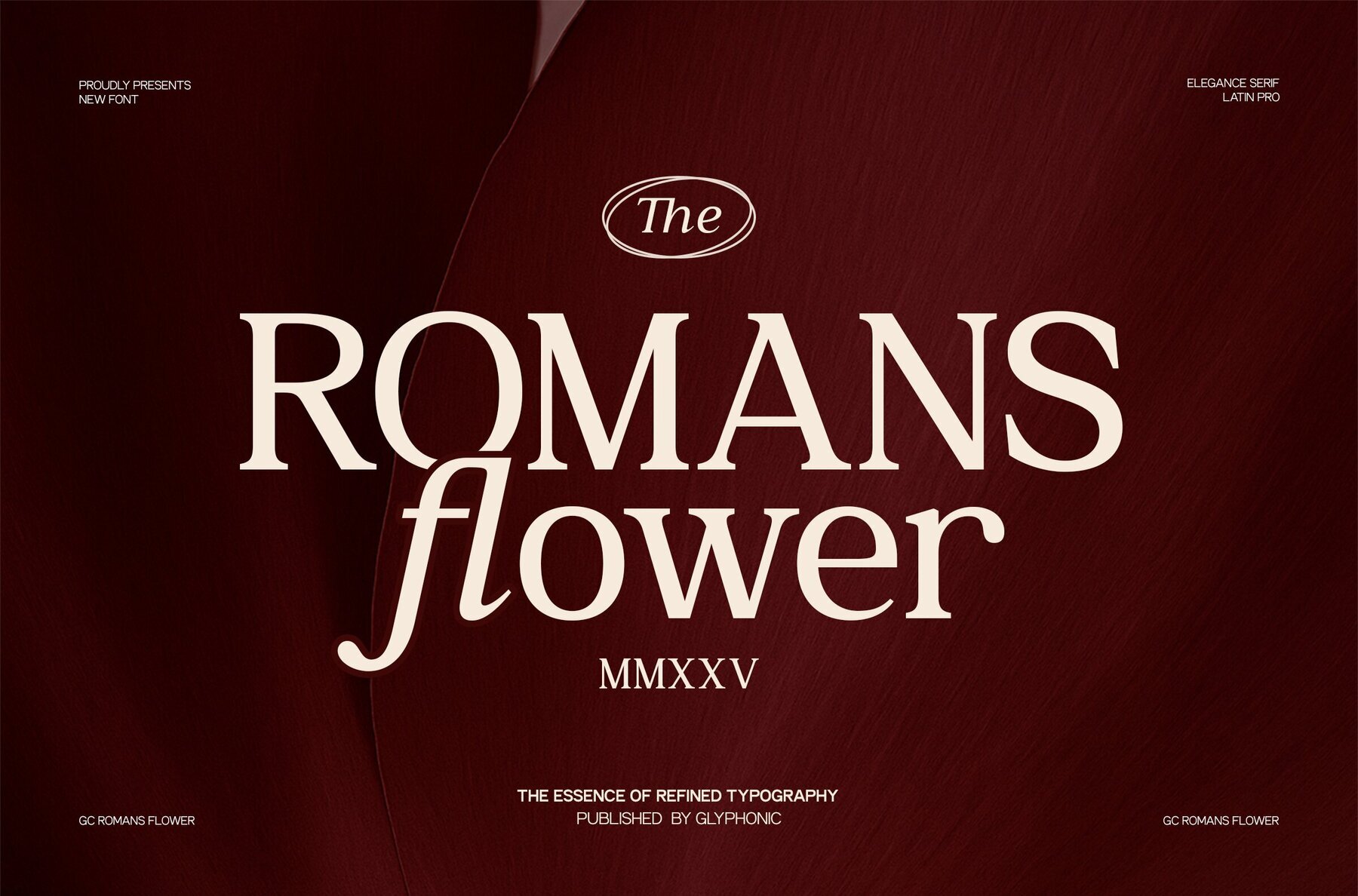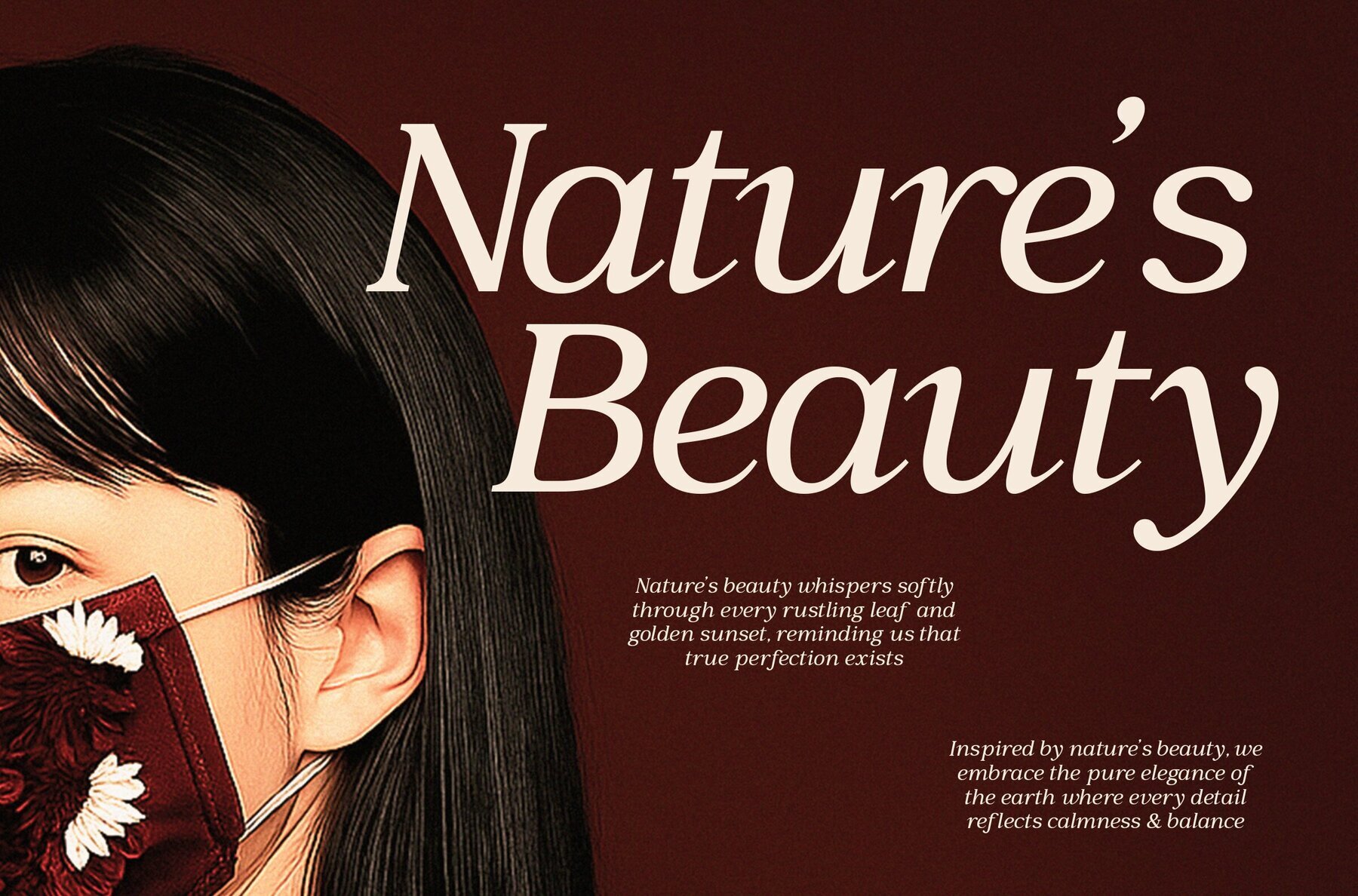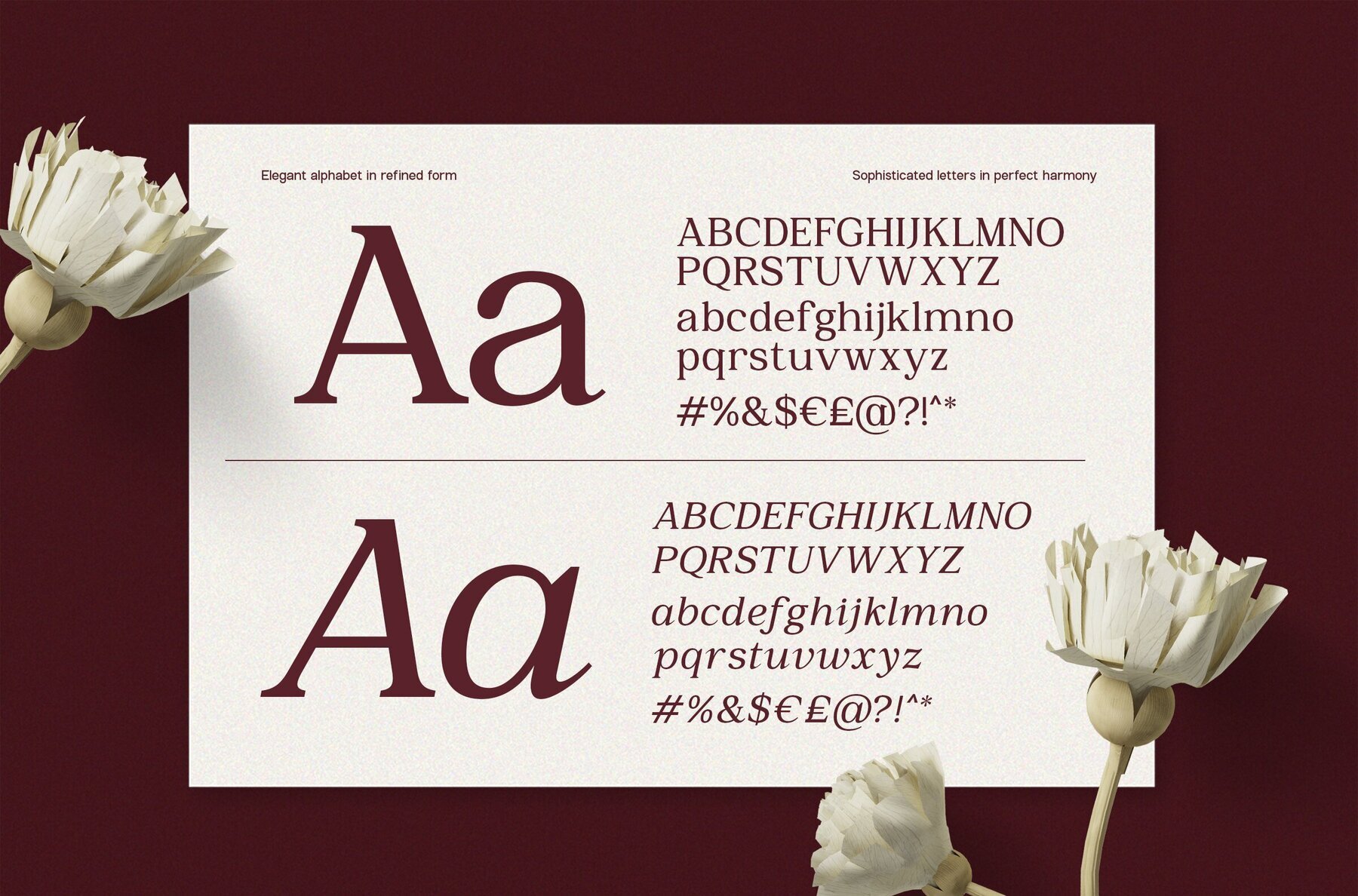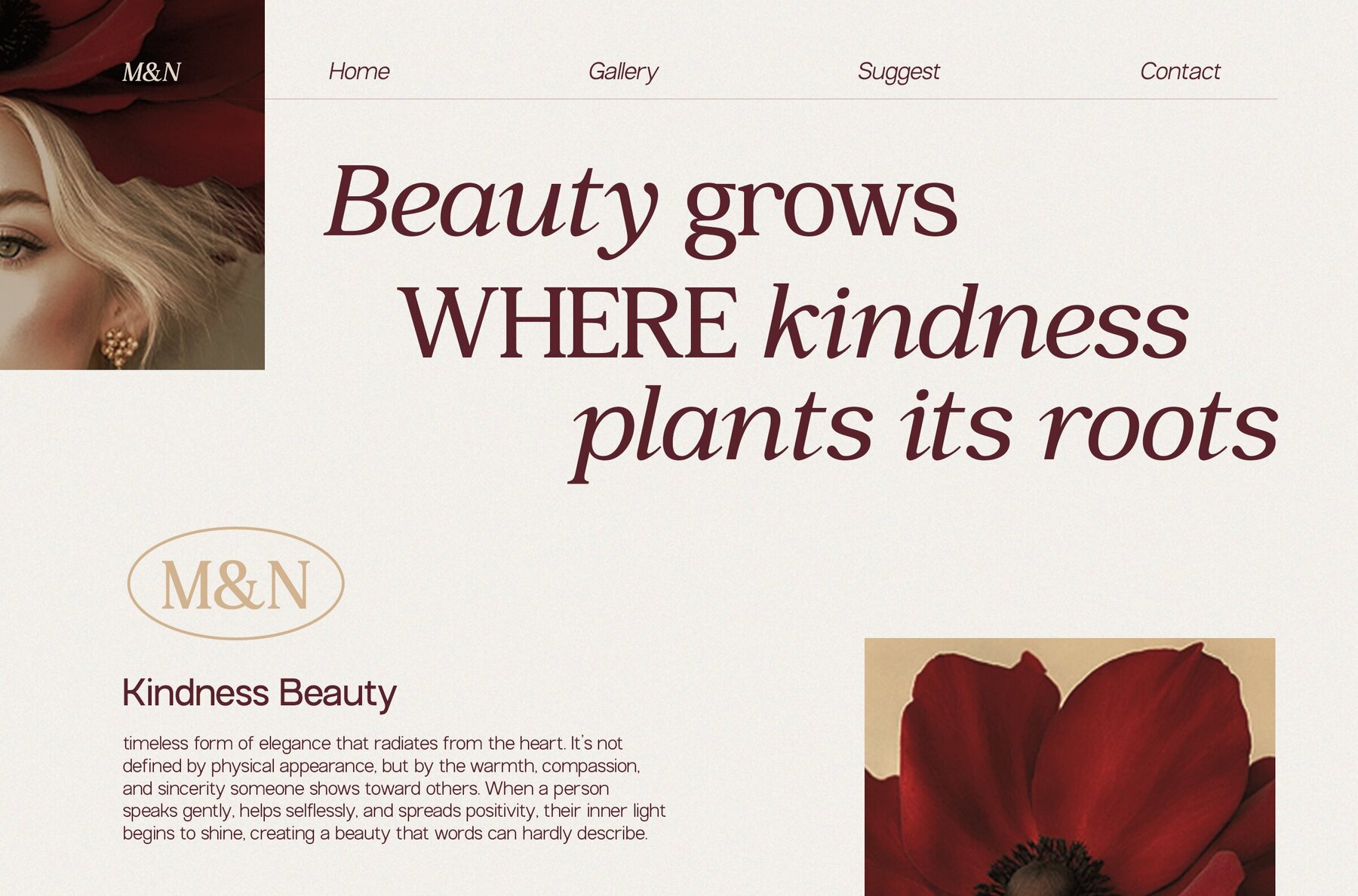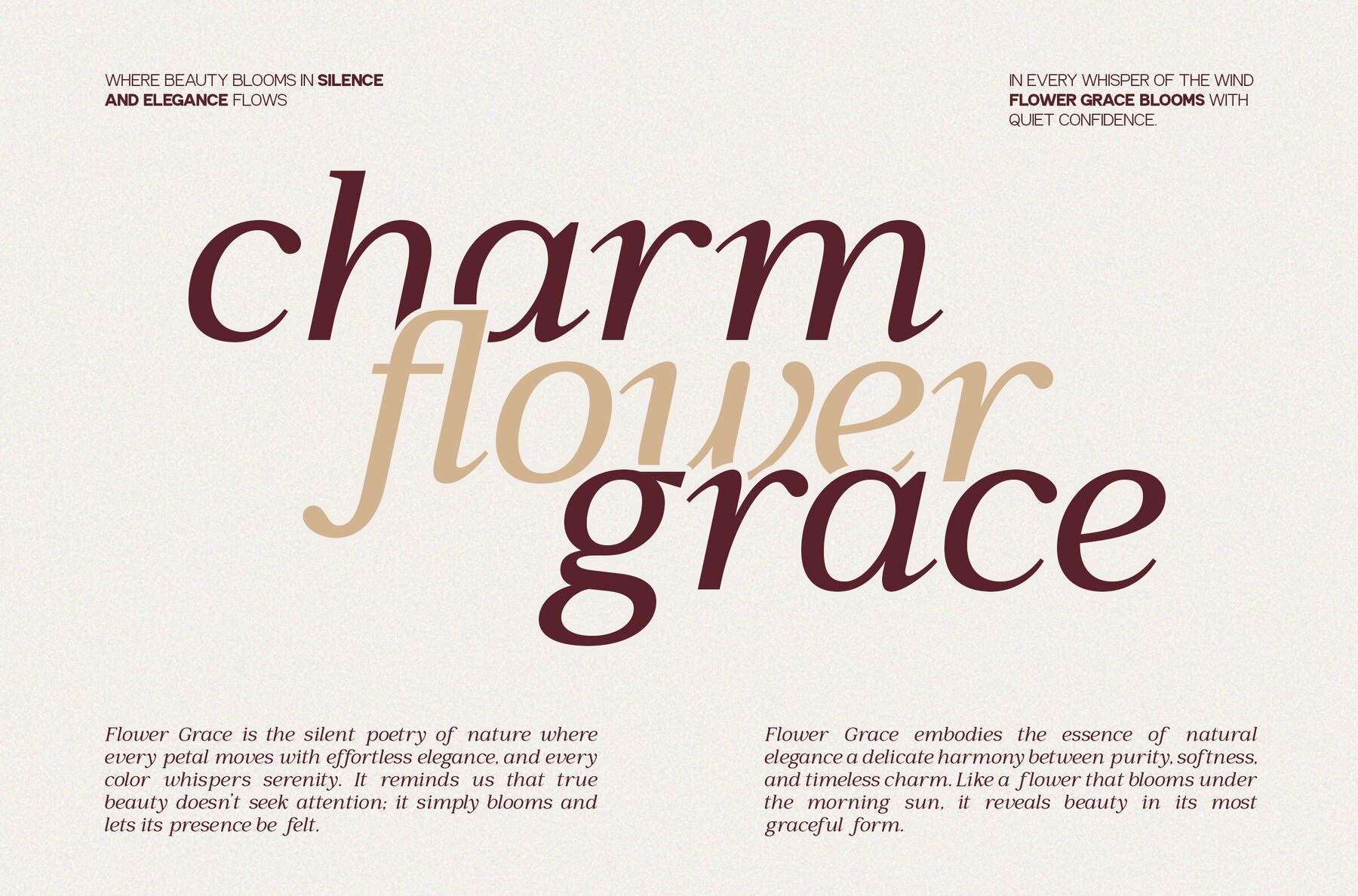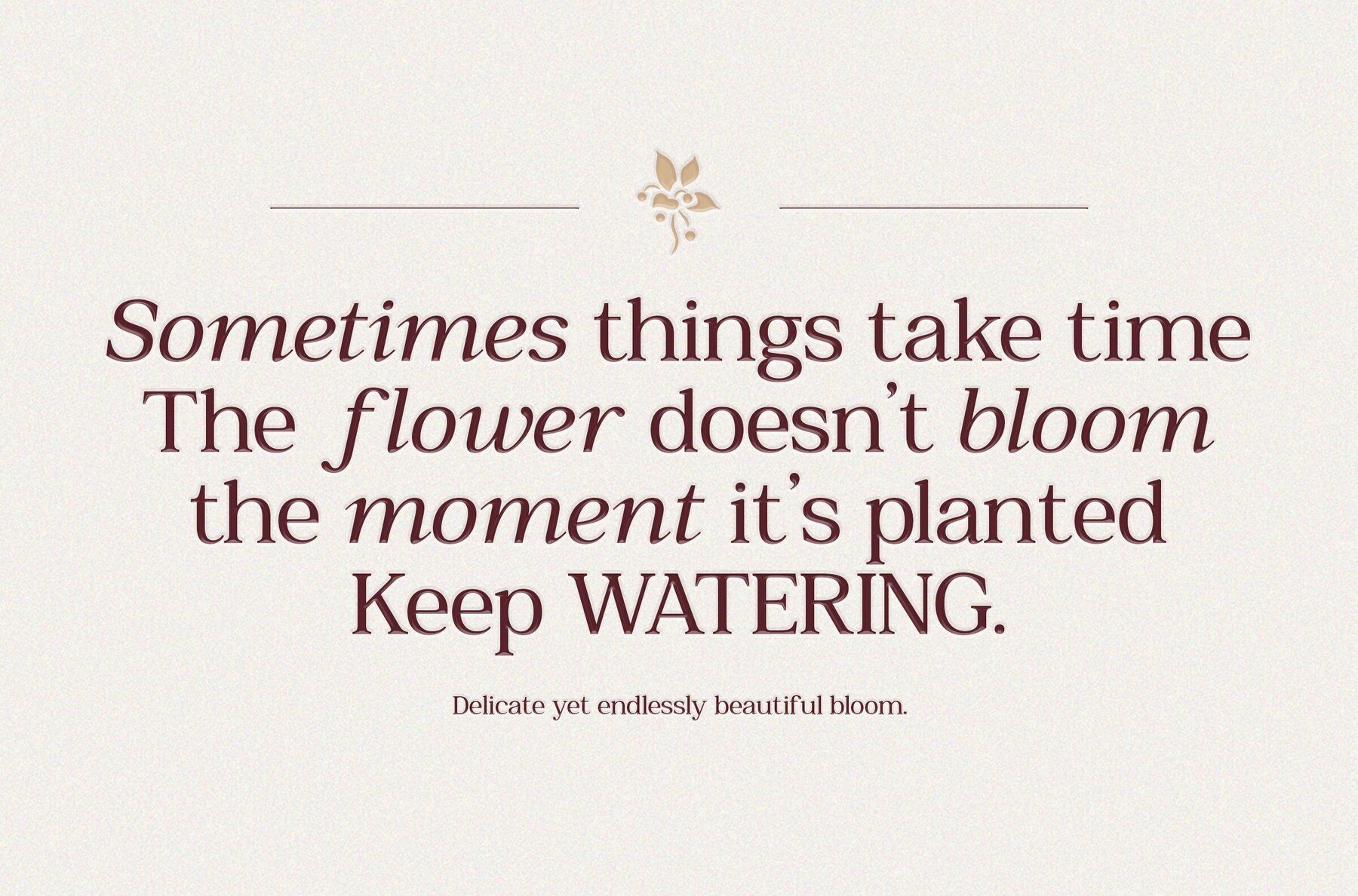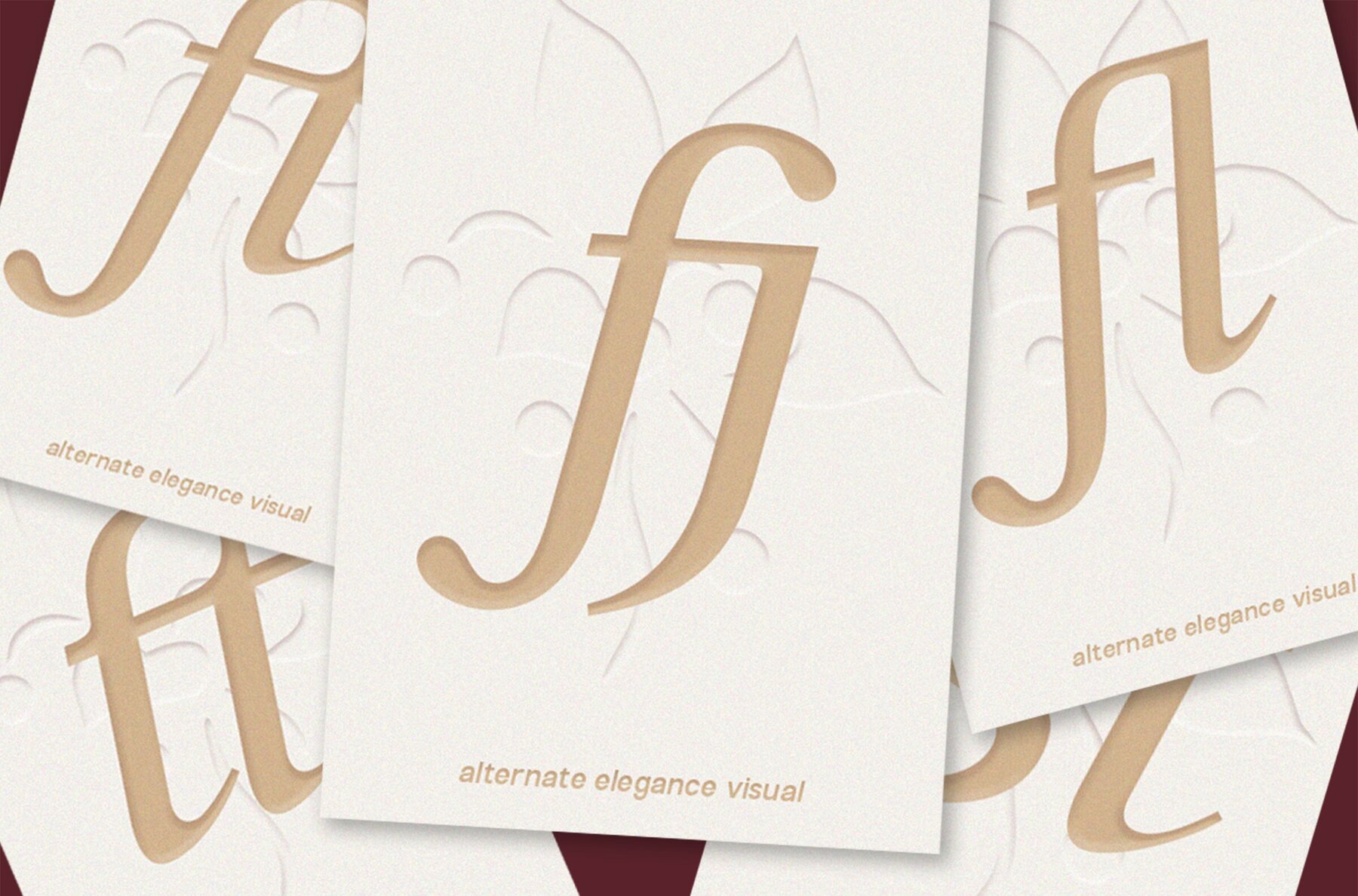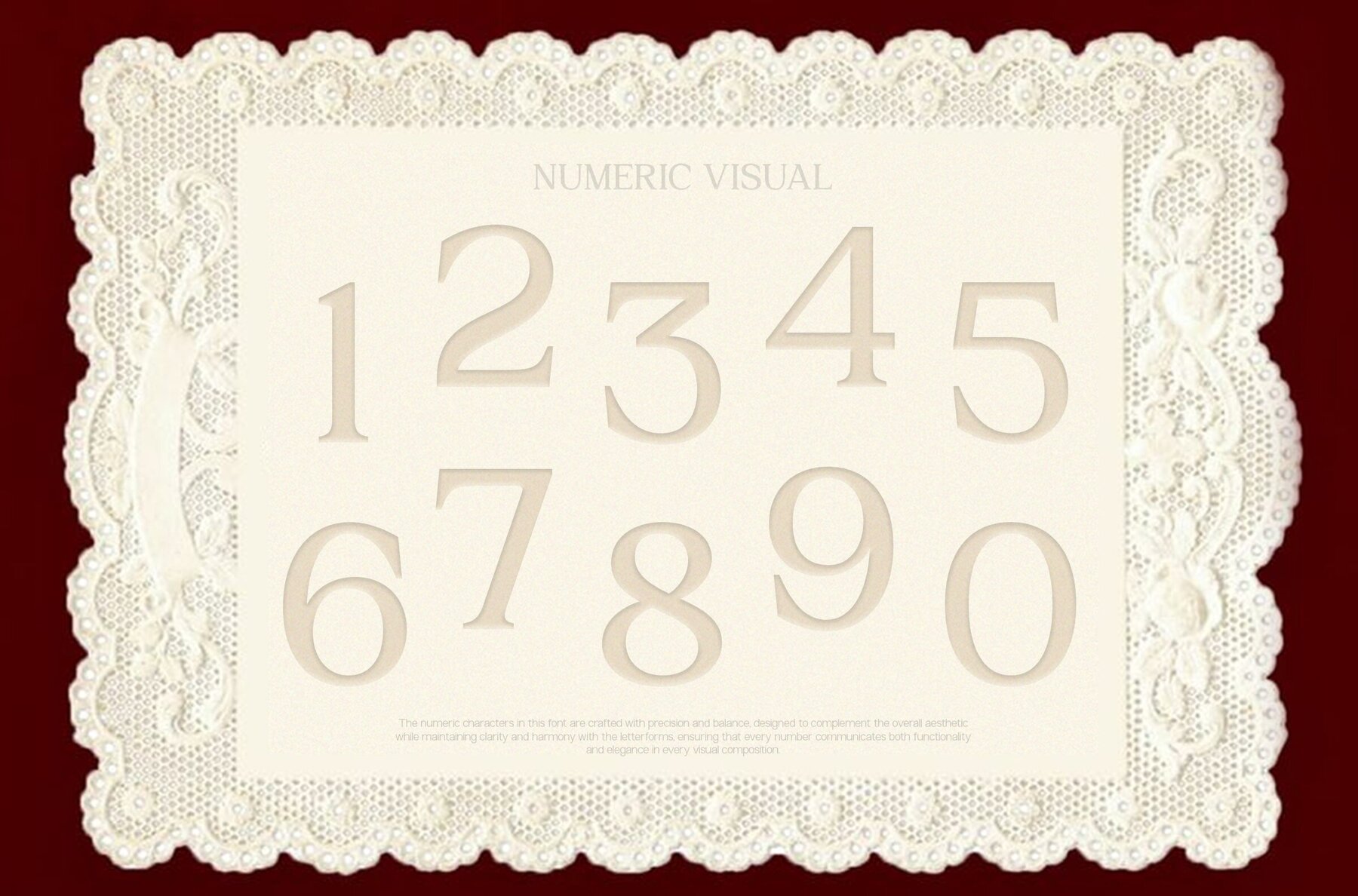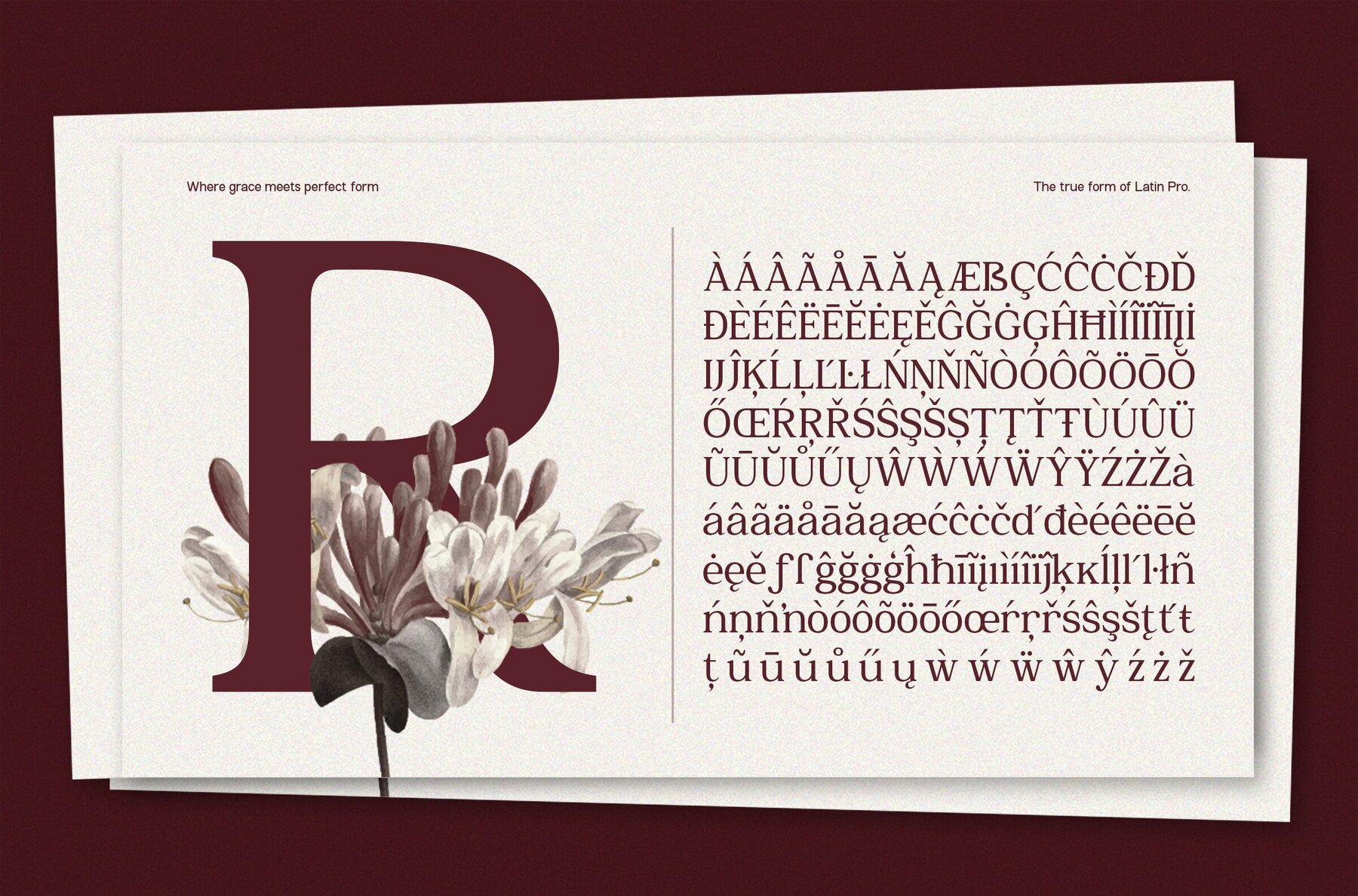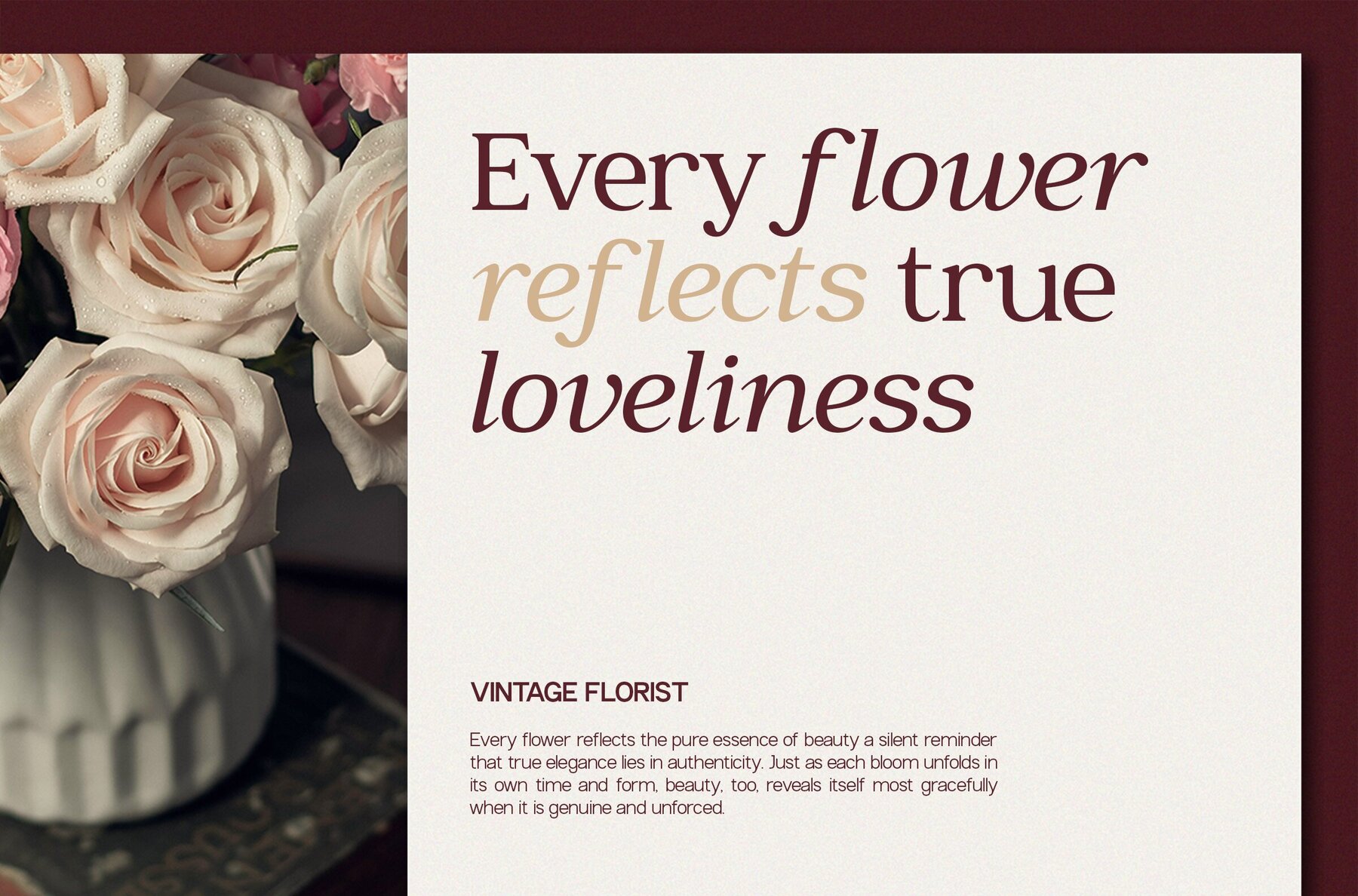
GC Romans Flower Font
GC Romans Flower is a serif typeface that blends classic inspiration with a contemporary edge. Its confident letterforms and refined details bring a sense of luxury and timelessness to any project. This font stands out with balanced proportions and carefully crafted curves, offering sophistication without sacrificing readability. It’s suited for projects where a polished and distinguished typographic presence is essential, from branding to editorial layouts. This typeface adapts seamlessly to premium packaging, wedding materials, and upscale visual identities. Its versatility shines in both bold headlines and subtle supporting text, making it a reliable choice for designers seeking a combination of style and function. The attention to elegant serif construction ensures a strong yet graceful appearance across various applications.GC Romans Flower – Elegant Serif Typeface